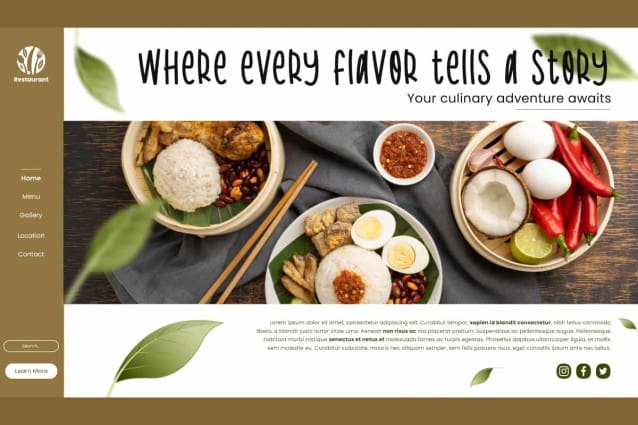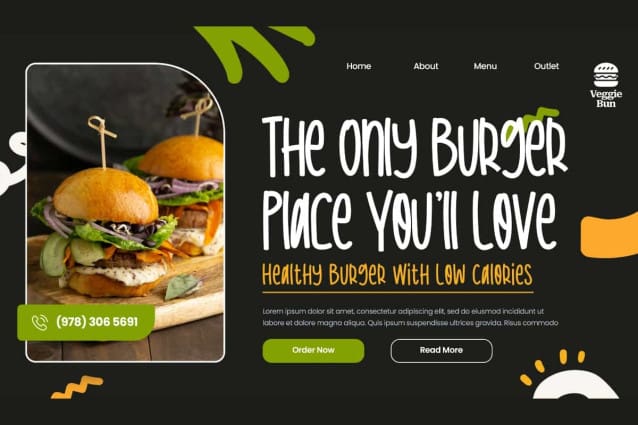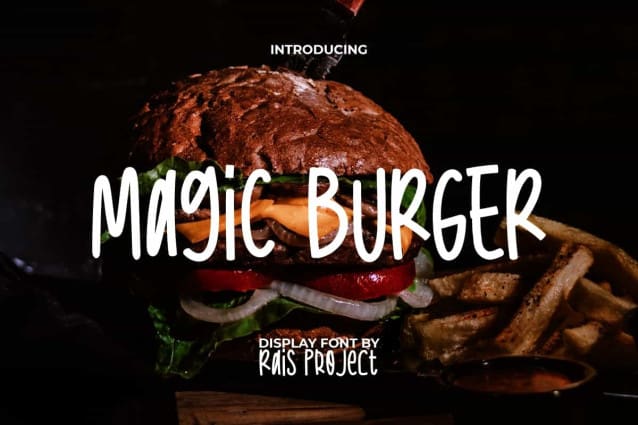
Magic Burger Font
Magic Burger Font is a charming handwriting display font, created by RaisProject. This font has a clean design concept so it can be paired with other types of fonts. So, it can be used in many design, such as brand image, cover, custom design, invitation, label, menu, poster, product packaging, quotes, stationery, web, and more!
Magic Burger Font includes a full set of Uppercase and Lowercase Letters, Numerals, Punctuation, and Symbol. This casual font will be suitable for various industries, such as accessories, advertisement, cafes, event, fashion, kids stuff, photography, printing, publishing, restaurant, etc.